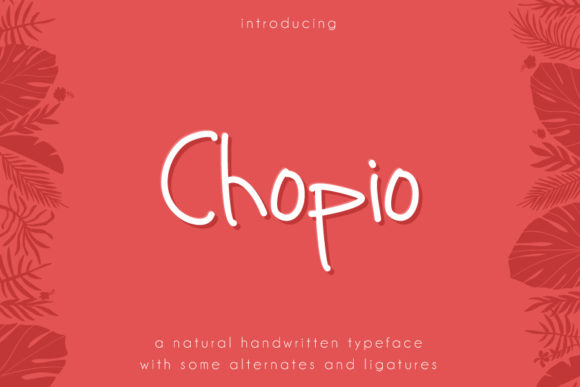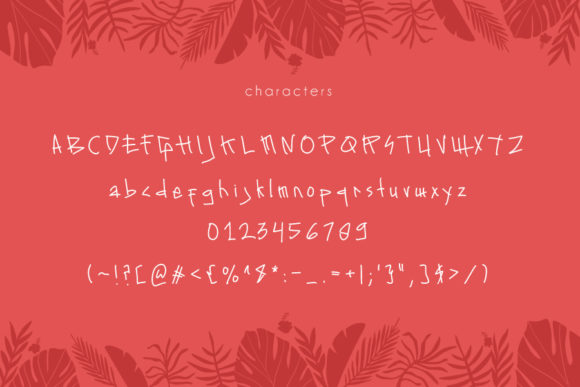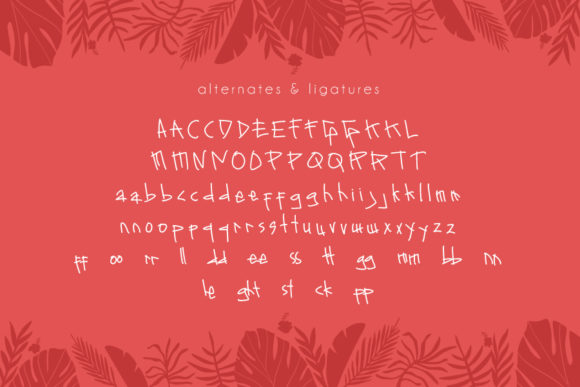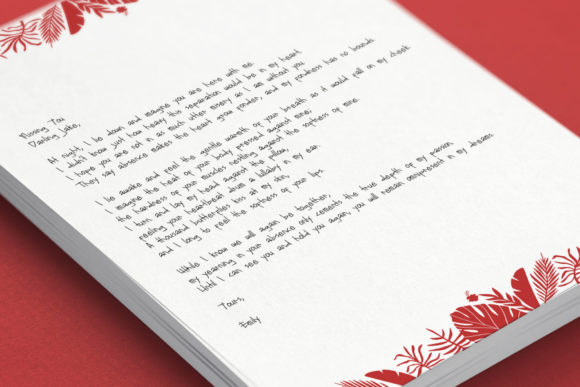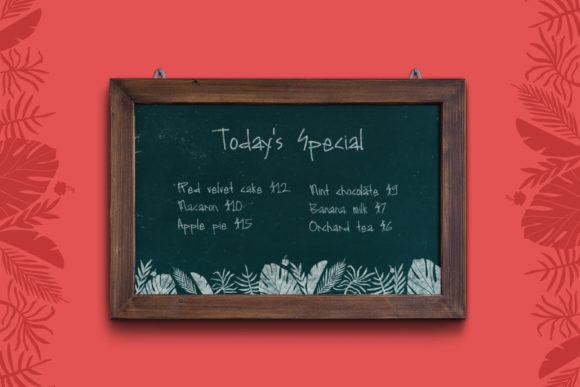
Chopio Font
About Chopio Font
Chopio feels equally charming and elegant. This handwrtitten font is the perfect fit for all of your logos, branding, social media, and crafty DIY projects.